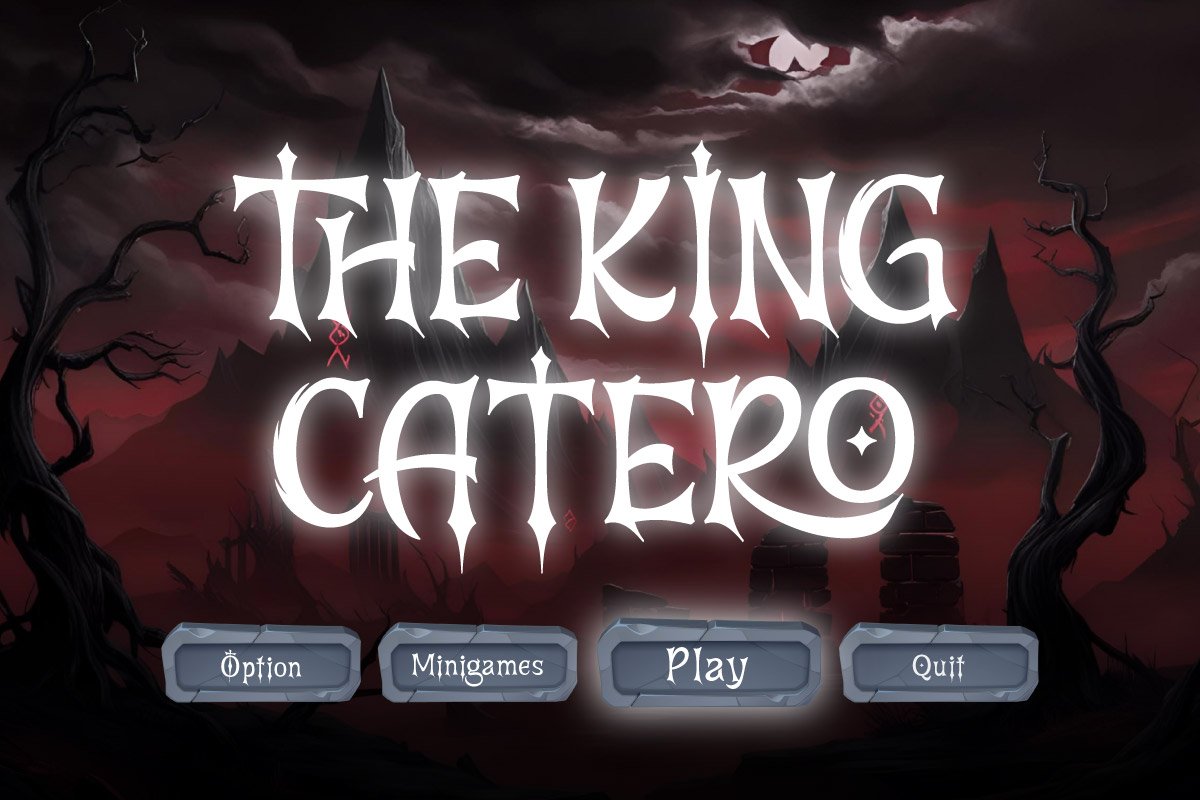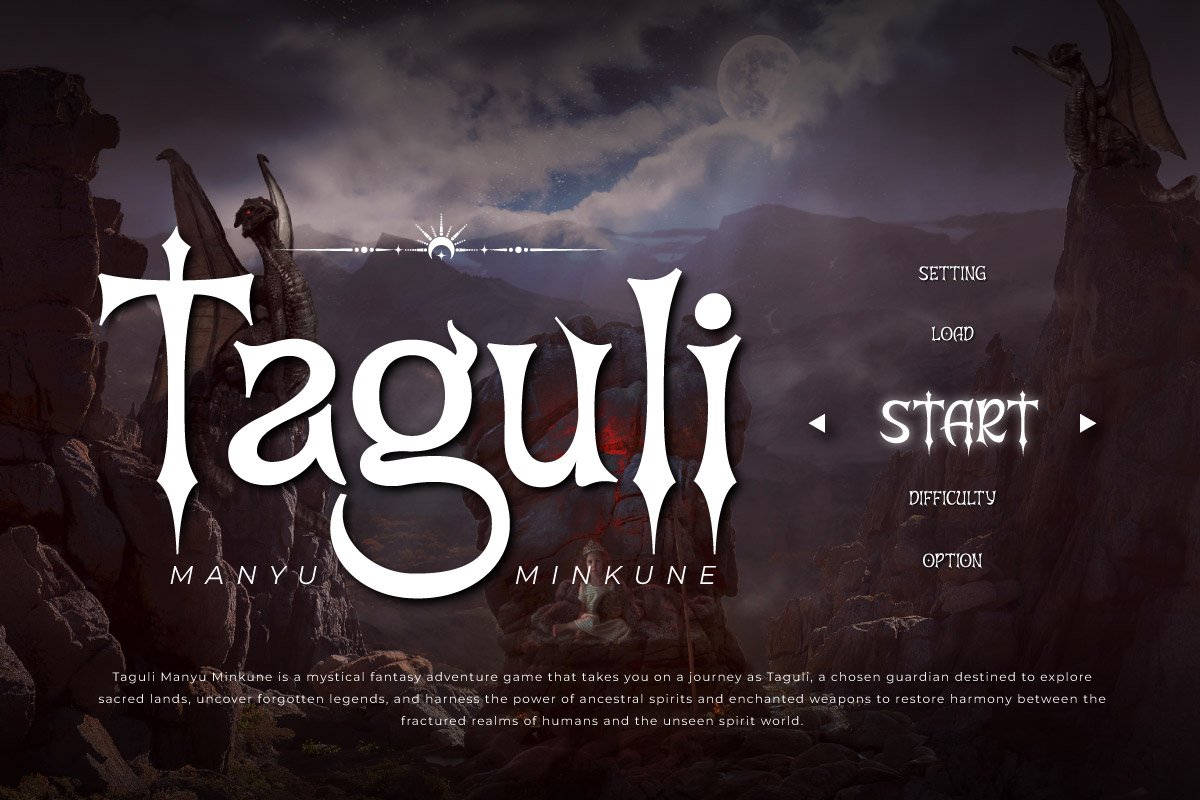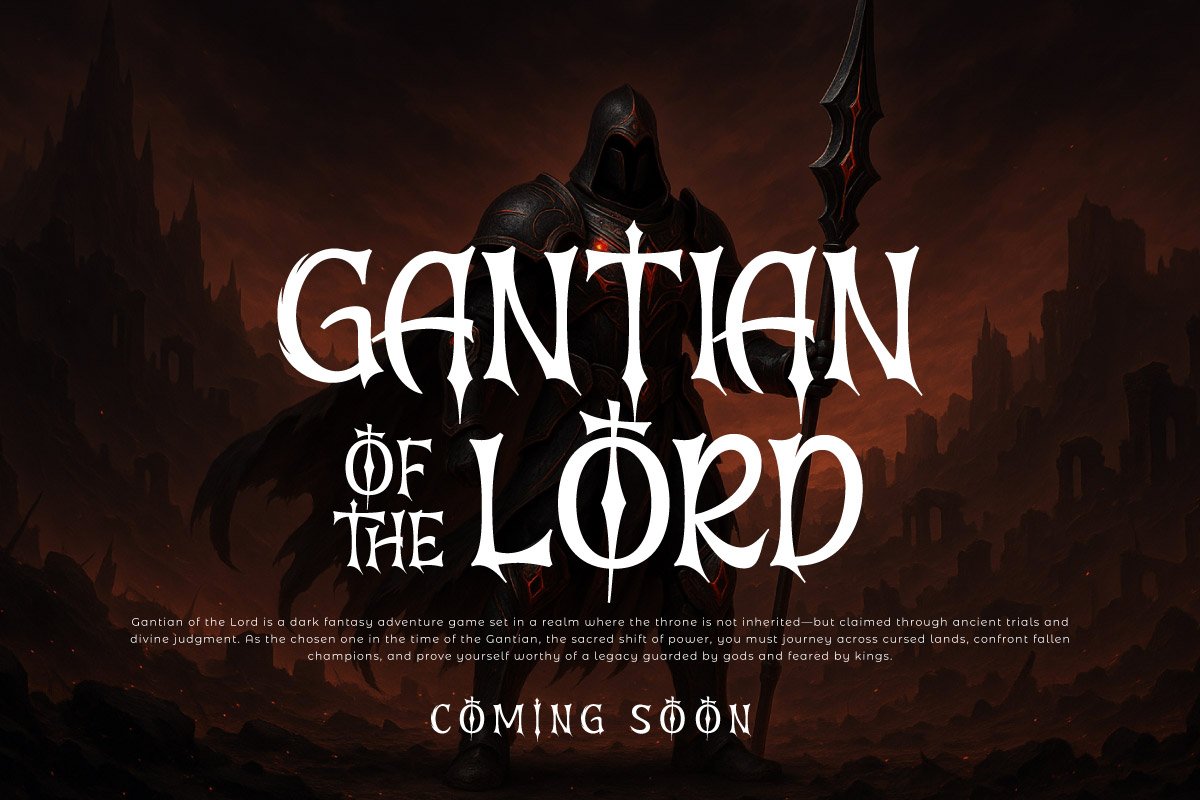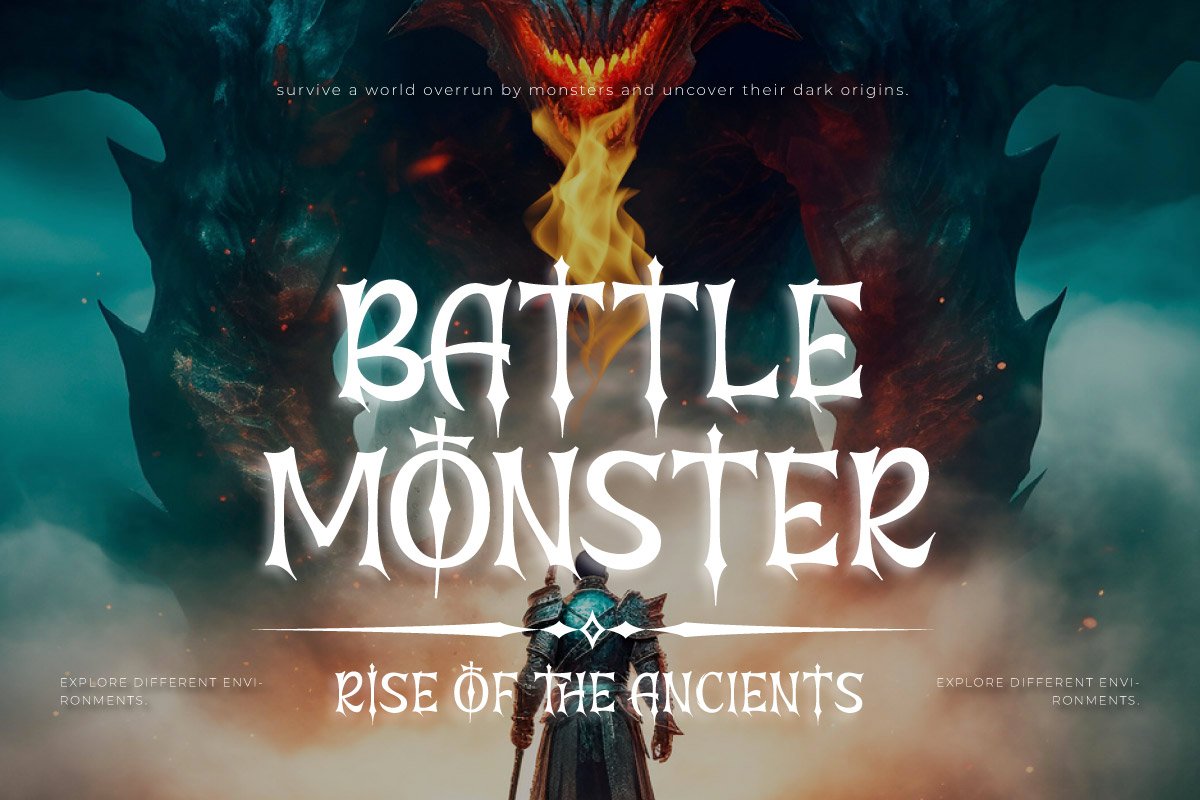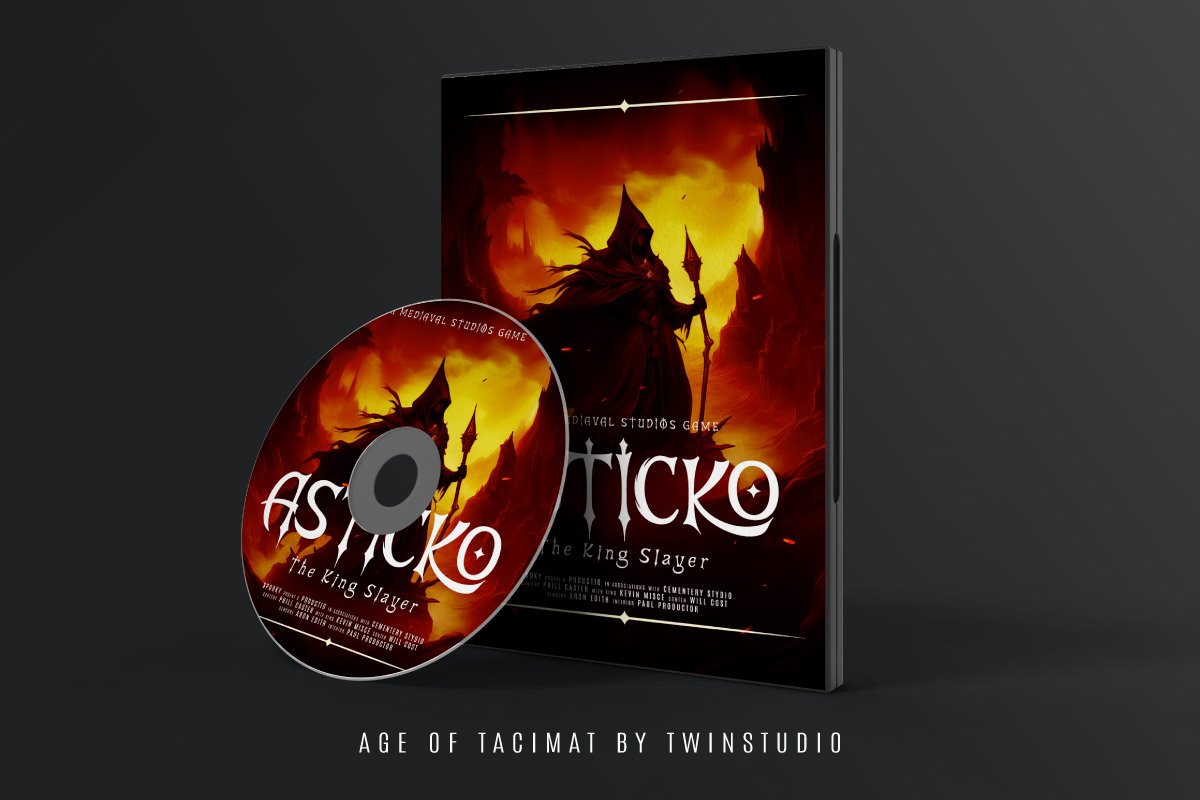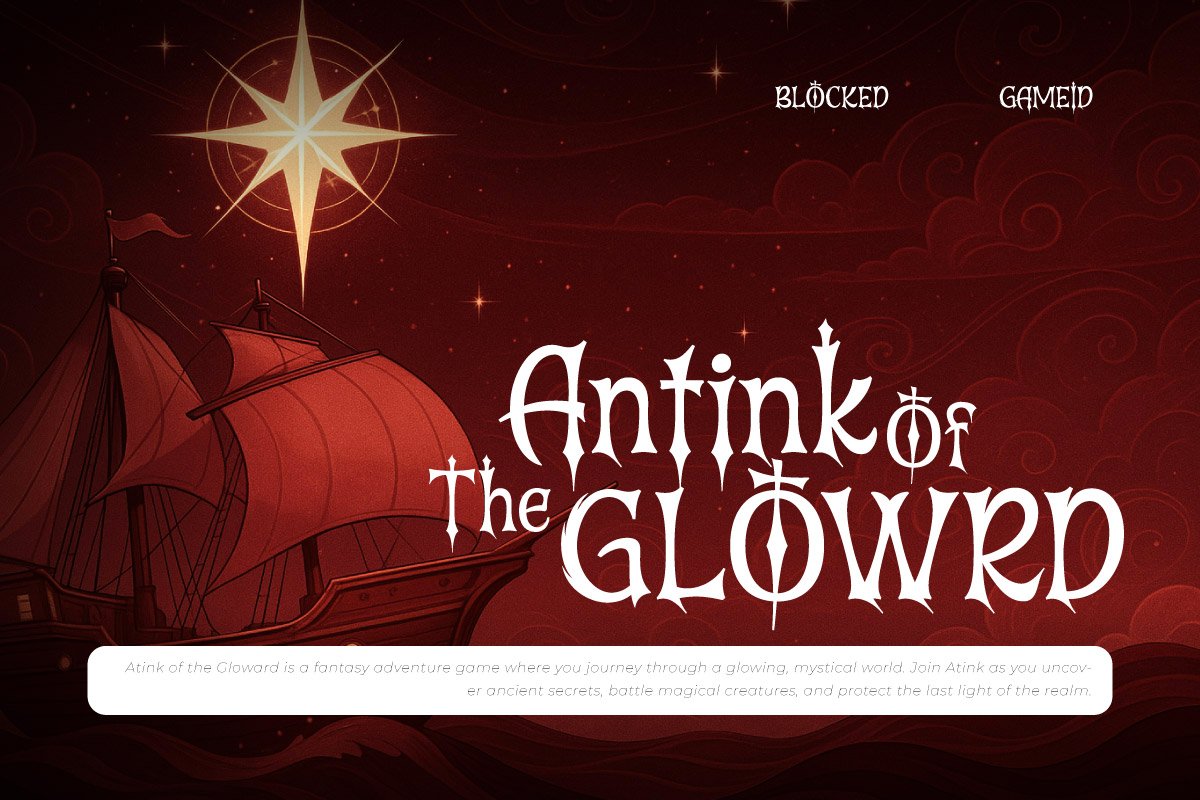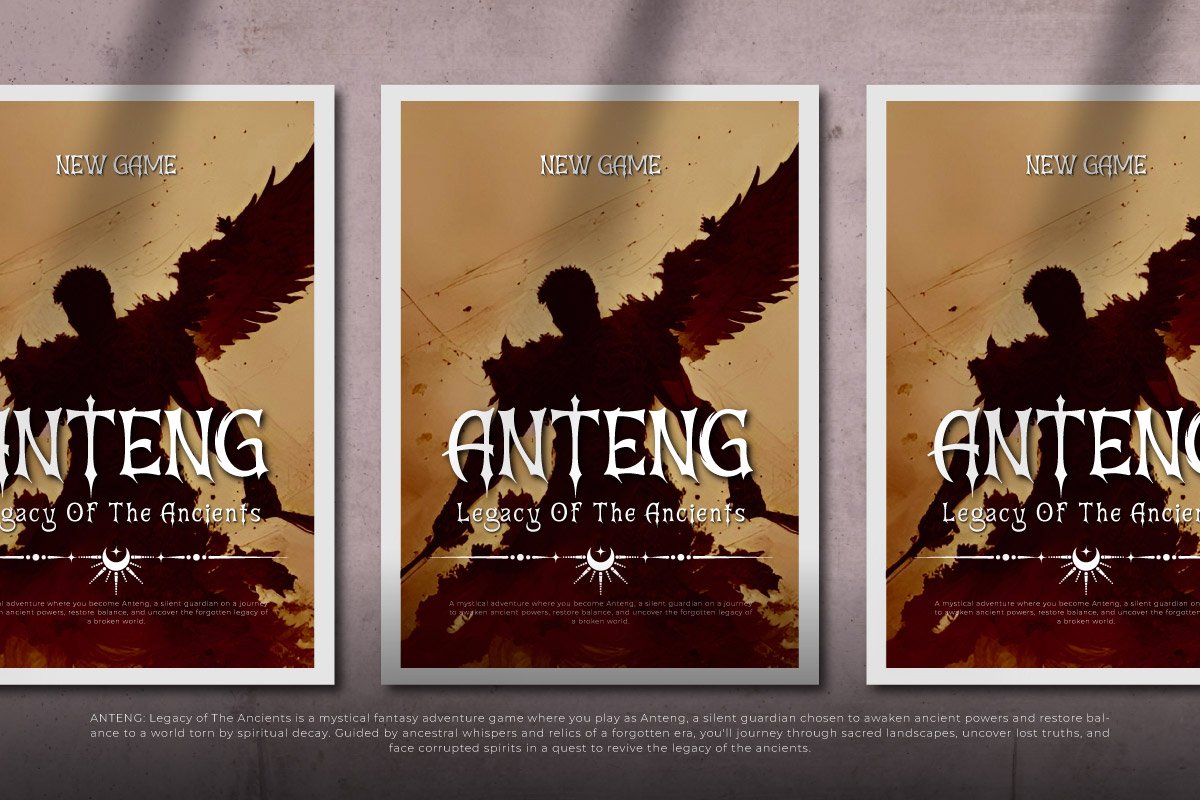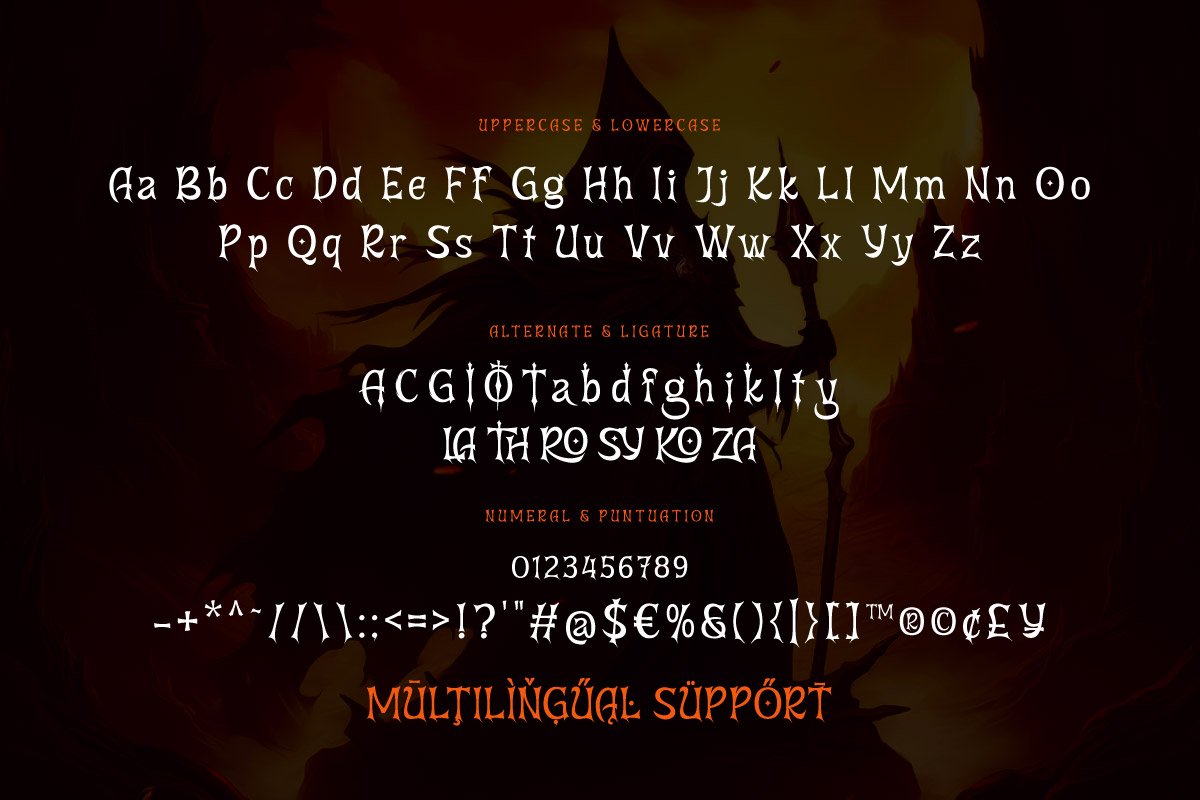
Age Of Taclmat – Fantasy Game Font
Step into an ancient world of valor and legend with Age Of Taclmat, a fantasy game font crafted to evoke the spirit of mythical lands and heroic quests. With its rugged serifs, dramatic curves, and timeless character, this font brings immersive fantasy aesthetics to life—perfect for RPG game titles, epic book covers, dungeon maps, or fantasy movie posters.
Every glyph in Age Of Taclmat carries the weight of forgotten empires and heroic destinies. Whether you’re designing for a high-fantasy game, tabletop RPG, or a dark sorcery tale, this font delivers intensity and medieval charm with a modern edge. Let your creativity rise through ancient winds—forge your next legendary story with Age Of Taclmat.